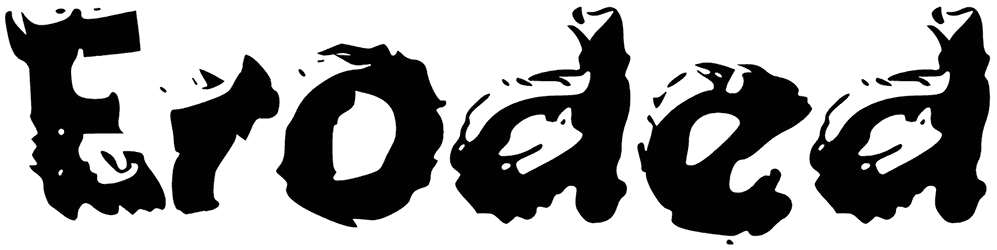
e Eroded Font
With a unique visual of this destroy font, you can create a distinct masterpiece and show off your creative talent. The e Eroded font has a bold and kinda 3D style that can add an attention-grabbing form to your words. Use this cool rustic font for your upcoming design, such as a sign for a gallery, and become memorable.